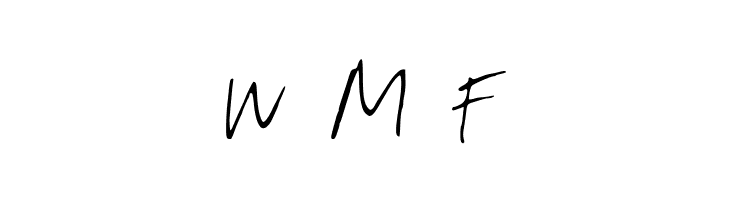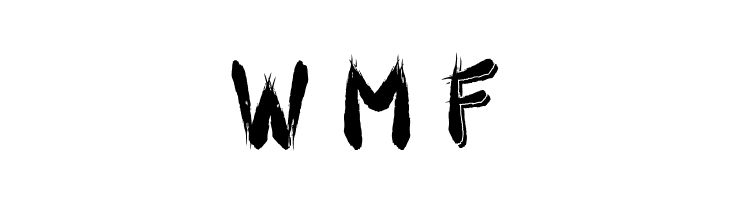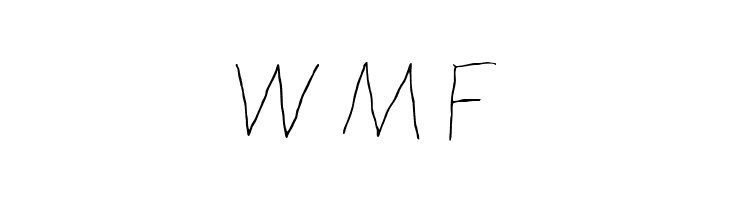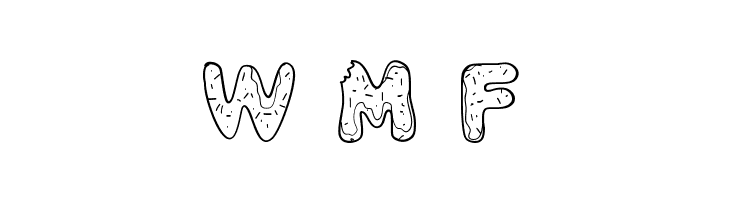
A bold, brush-style font with dynamic, artistic strokes.
A casual, handwritten font with a playful and informal style.
A playful, bold handwritten font with a casual and friendly style.
A dotted line font mimicking handwriting practice sheets, ideal for educational use.
A dotted cursive font with arrows for instructional handwriting practice.
A playful, handwritten font with dynamic strokes and a casual style.
A casual, handwritten font with varied stroke thickness and a playful appearance.
A playful, handwritten script font with fluid, connected letters and dynamic strokes.
A creative font designed to resemble pencil drawings, ideal for educational themes.
A bold, playful handwritten font with expressive strokes and a casual style.
A hand-drawn, sketch-like font with uneven weights and rough edges.
A bold, italic script font with a lively, handwritten style.
A playful, childlike font with bold, rounded strokes and a whimsical, hand-drawn style.
A playful, donut-themed decorative font with sprinkles and icing patterns.
A bold, icon-based decorative font mimicking video game controller symbols.
A casual handwritten font with fluid, slightly irregular characters.
A fluid and expressive calligraphy font inspired by traditional Chinese brush writing.
A casual, handwritten font with a dynamic and organic feel.
A display font composed of iconic beverage and beer brand logo designs.
A casual, handwritten font with a playful and dynamic style.